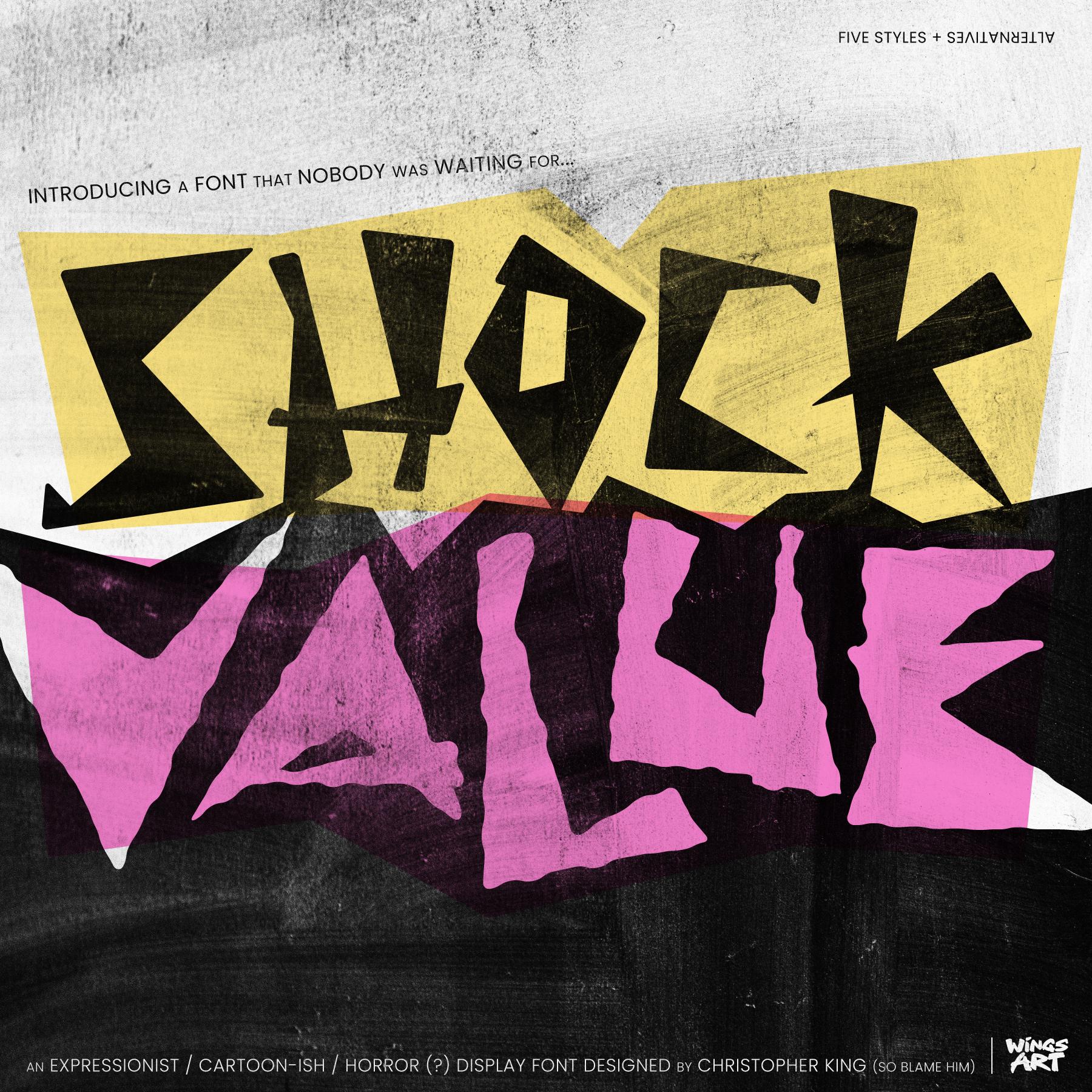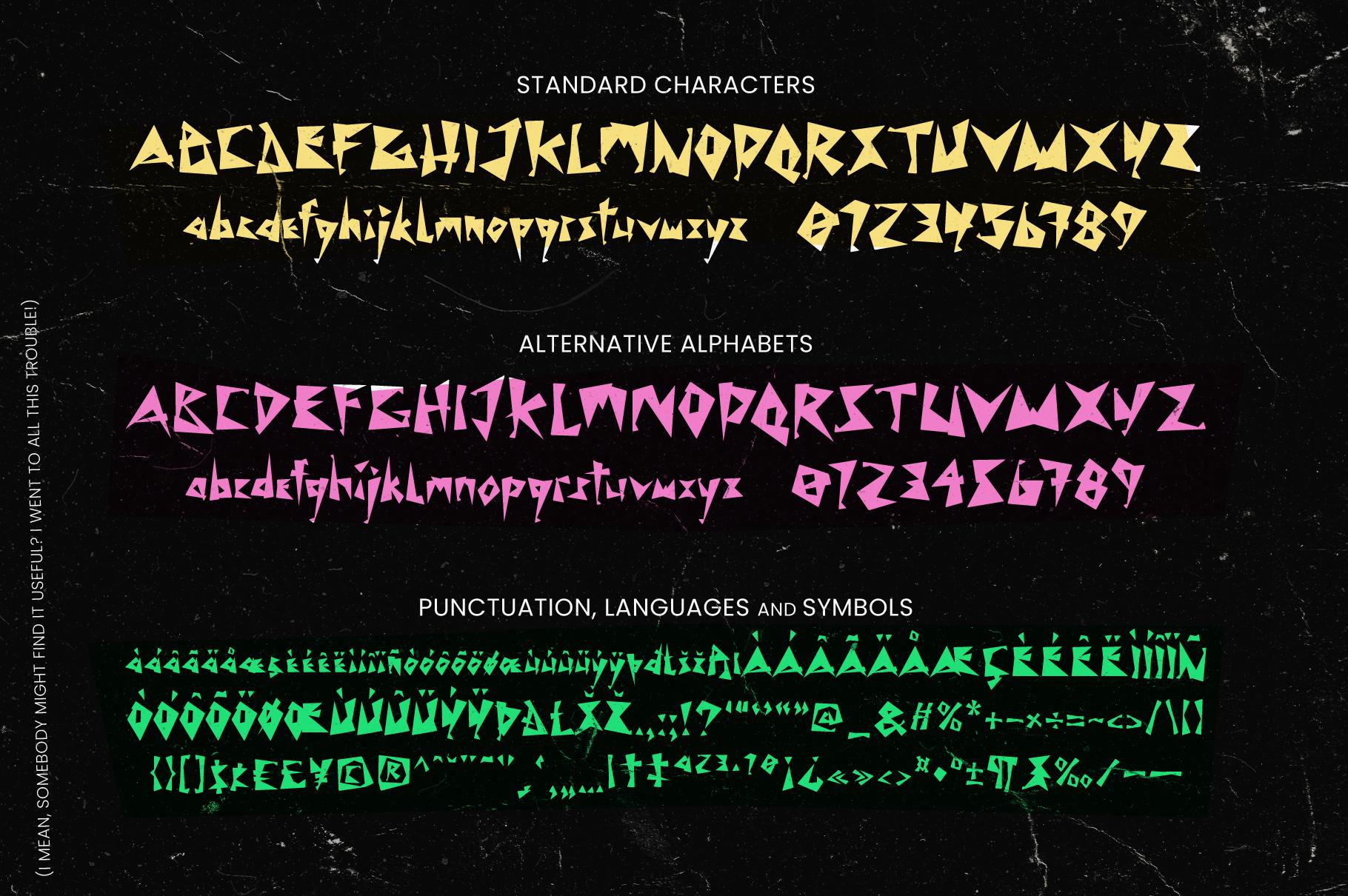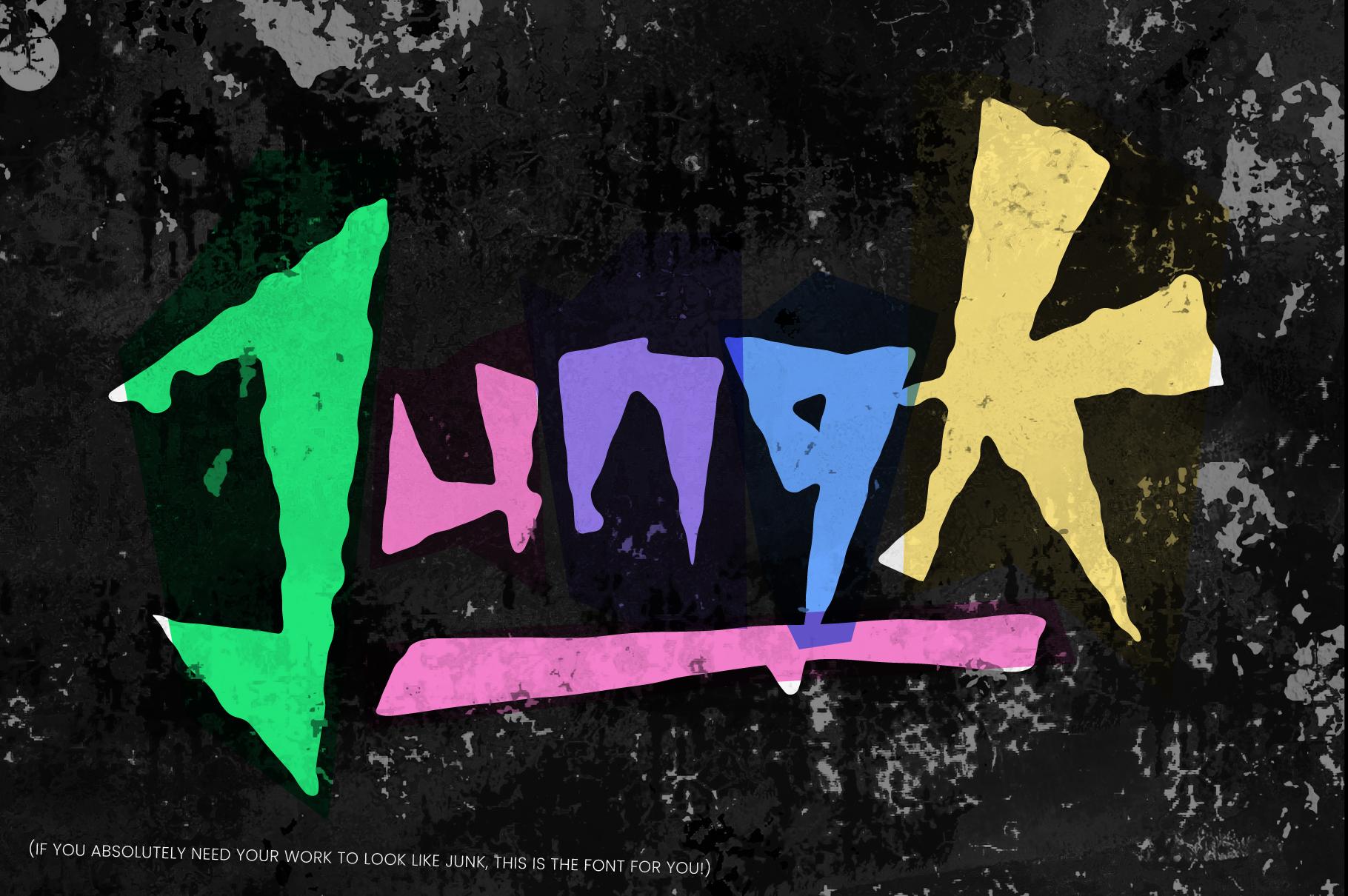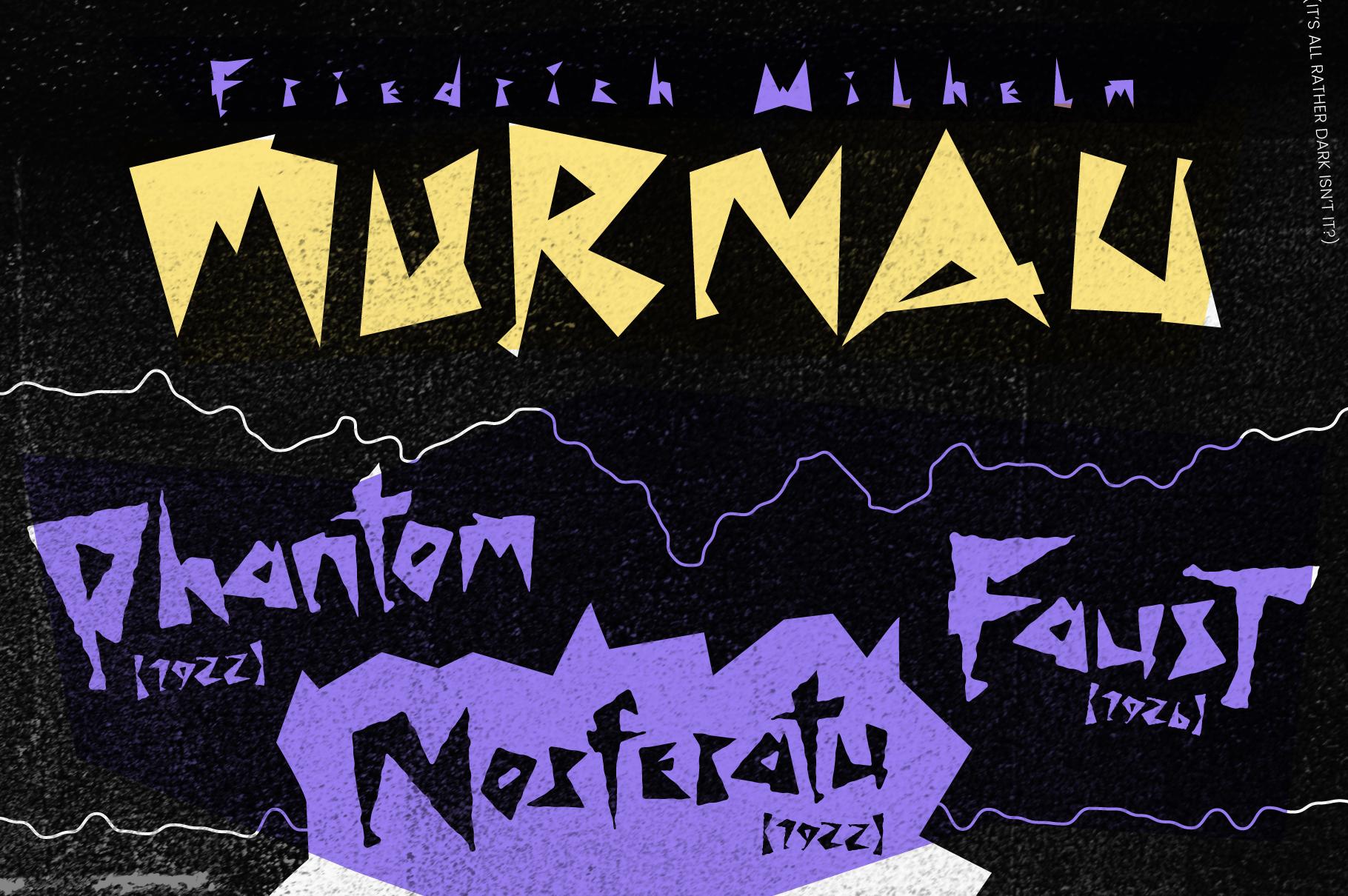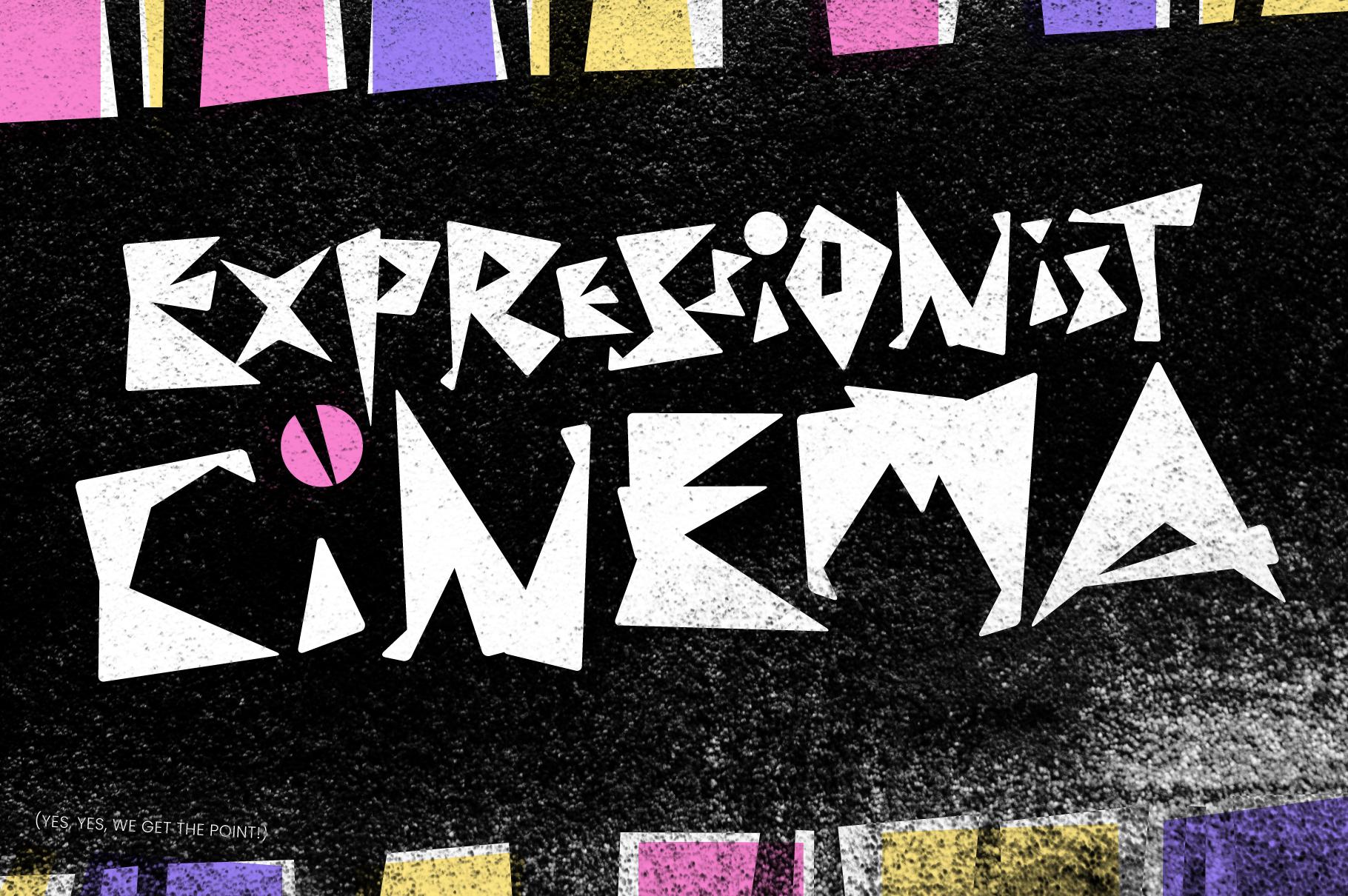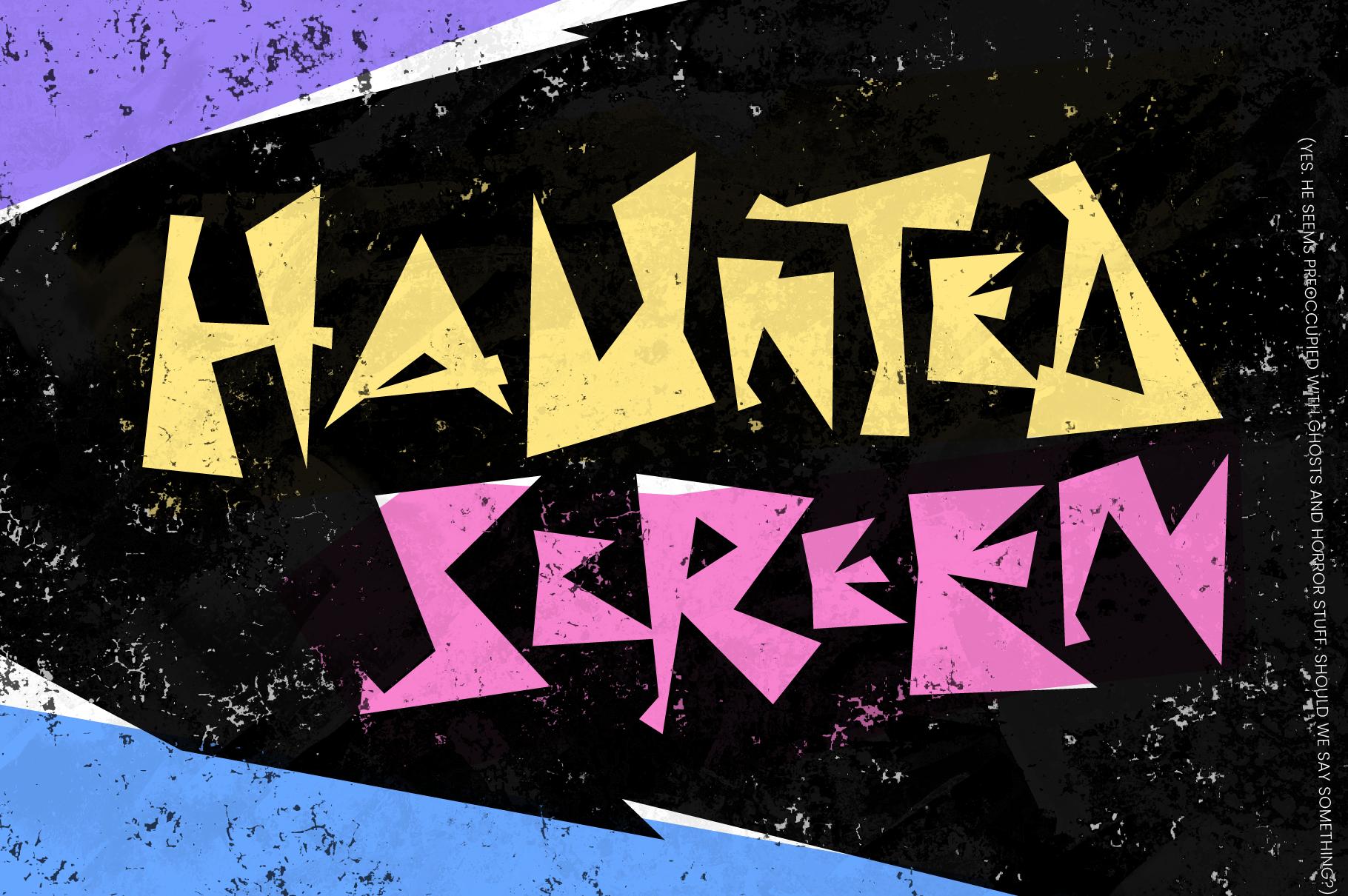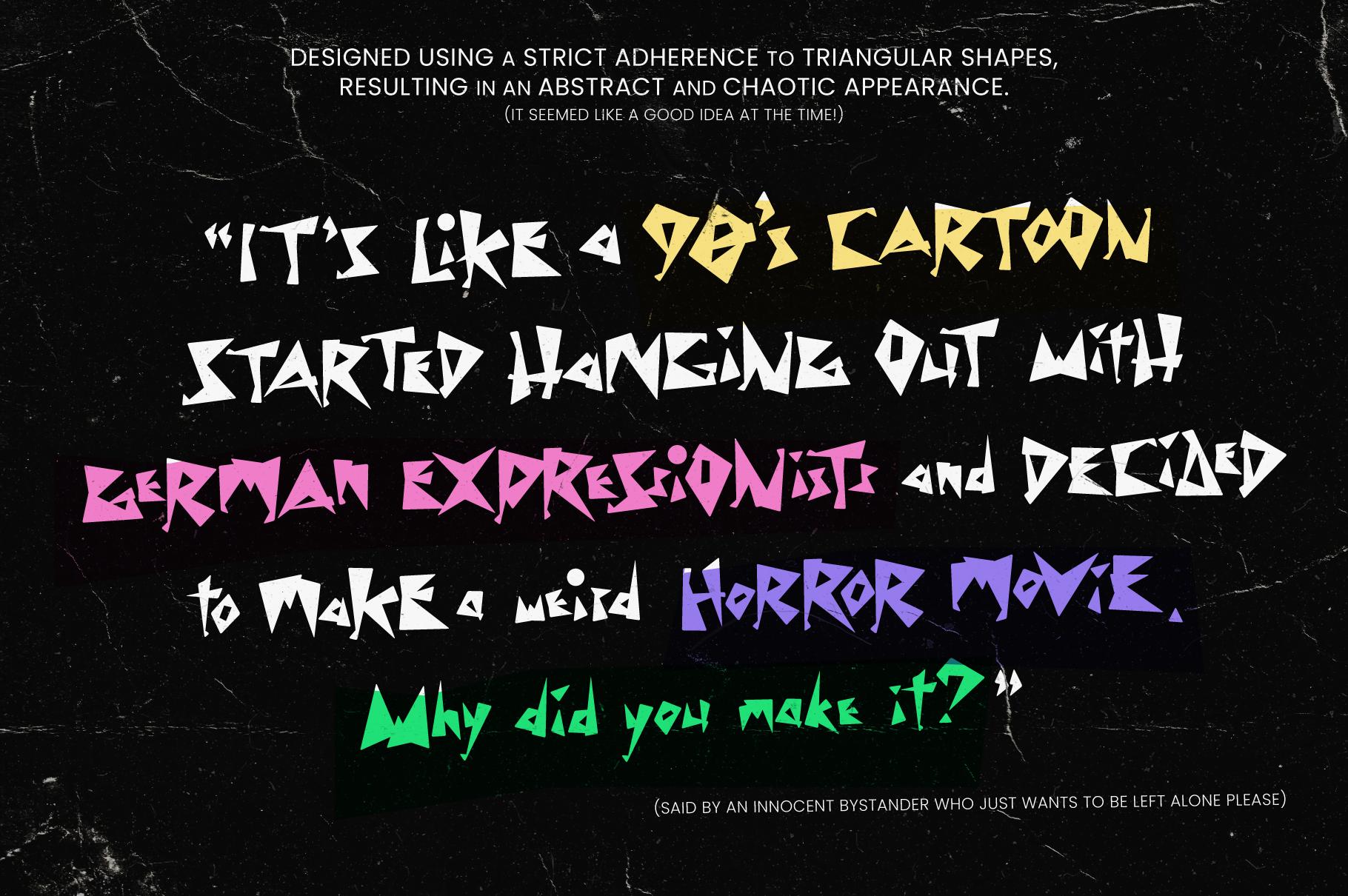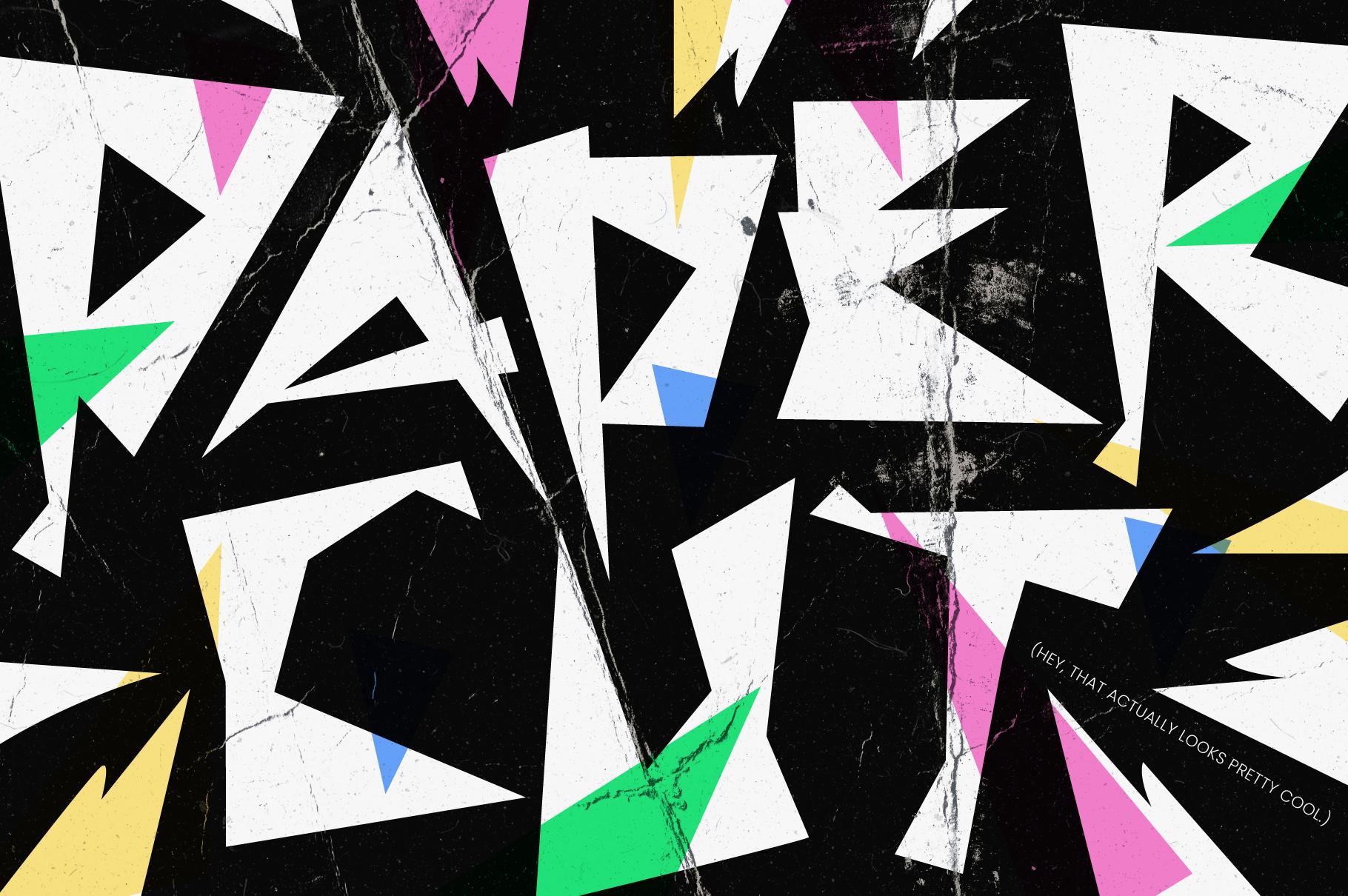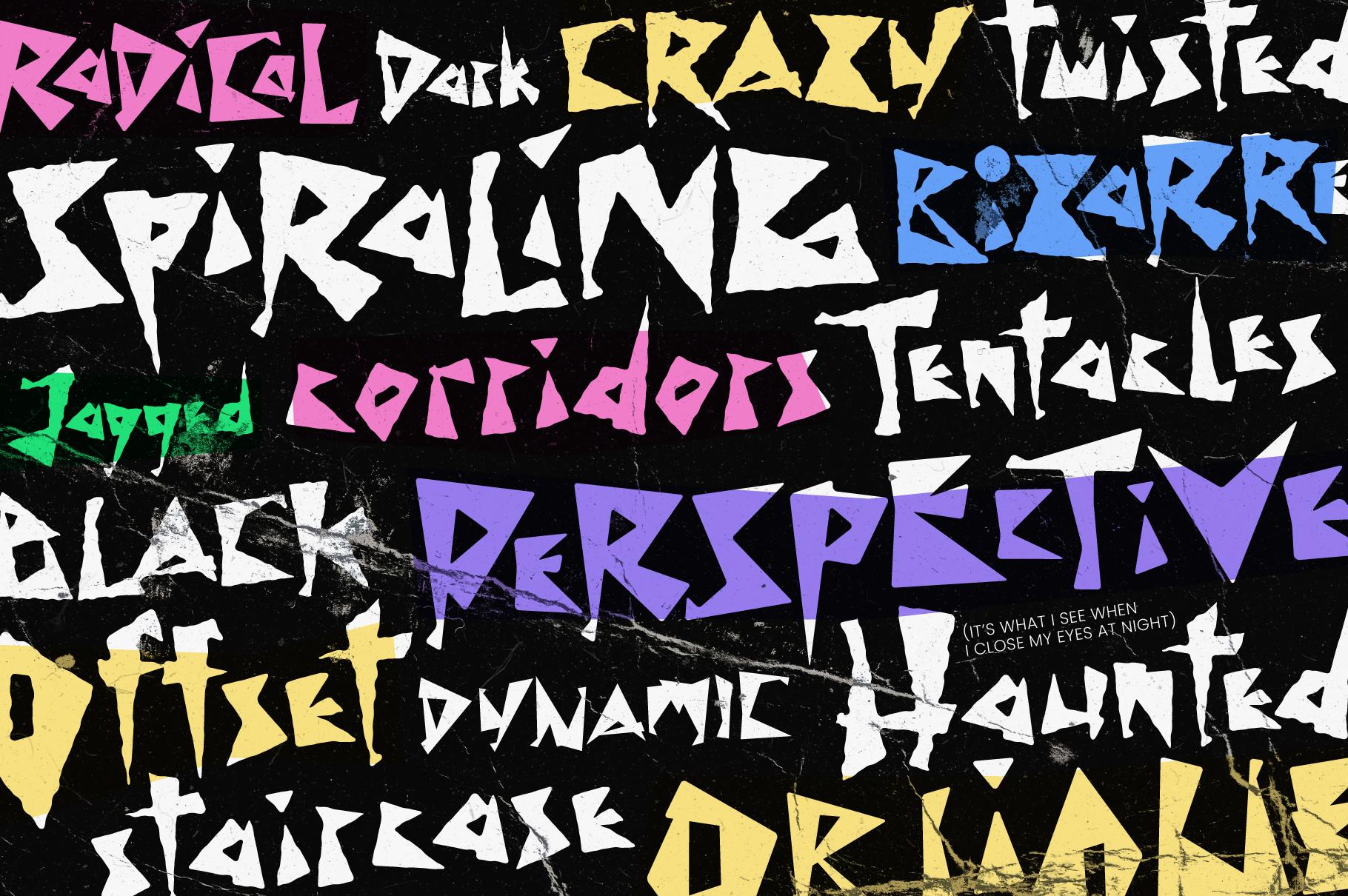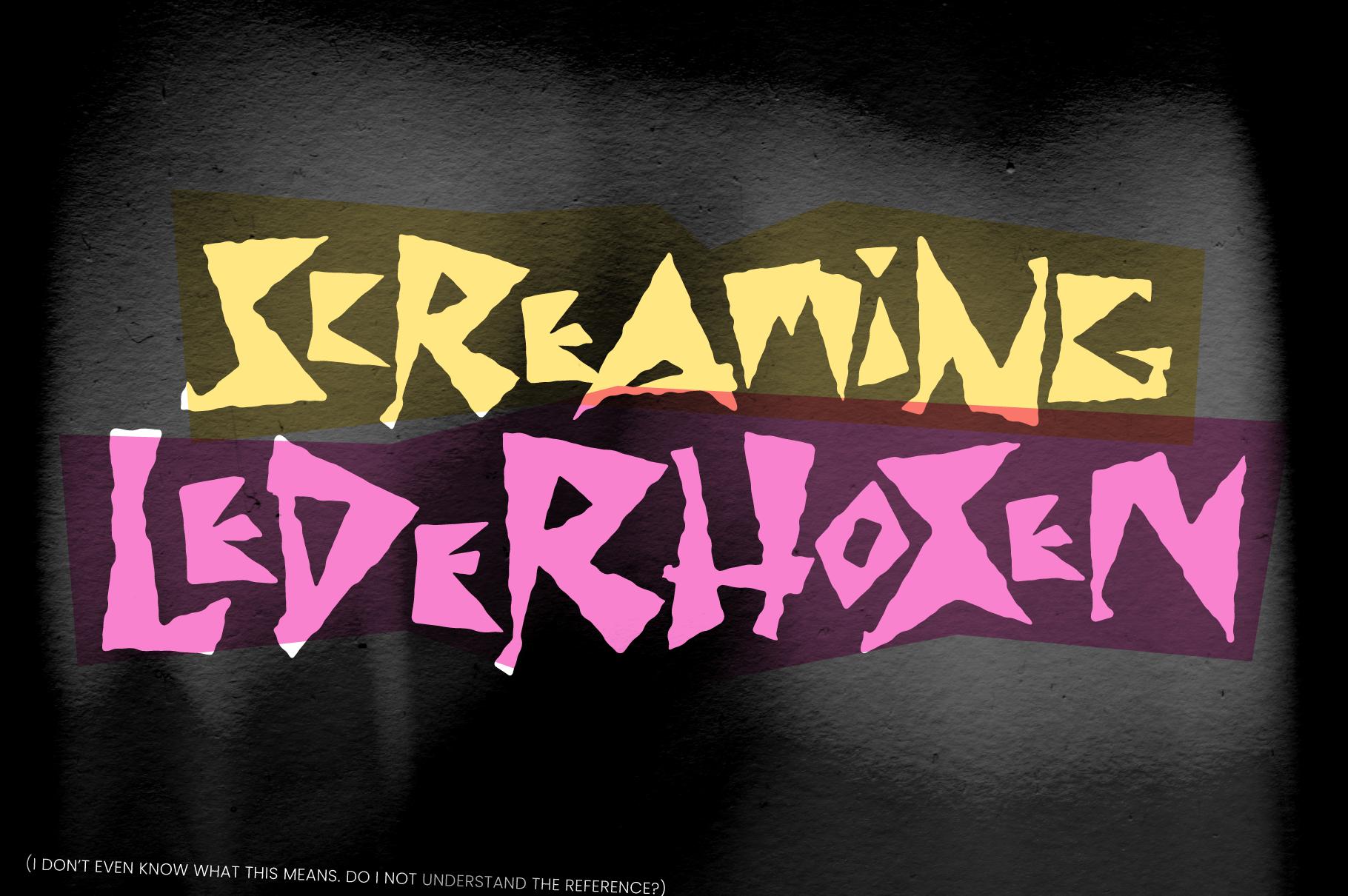
Shock Value - An Expressionist, Cartoon-ish, Horror Display Font.
Shock Value is a display font that combines elements of German Expressionist cinema, 90s cartoons, and horror aesthetics. It includes uppercase and lowercase characters, numerals, multilingual support, and a complete set of alternatives across five styles, available in OTF, TTF, WOFF, and WTF formats.
Christopher King (aka Wingsart Studio) is a graphic font designer with a background in publishing, TV, and film. His work leans towards a hand-drawn look that's particularly suited to headers and titles, already used by global brands such as Disney, Apple, and Marvel.